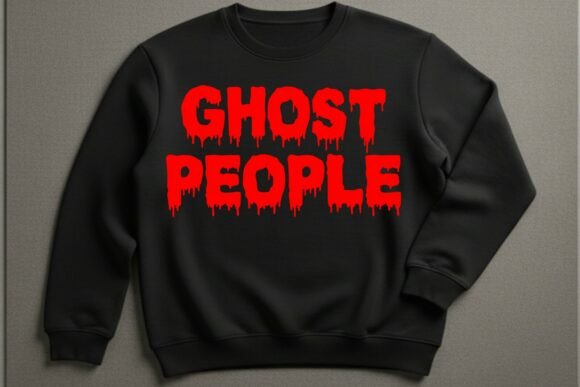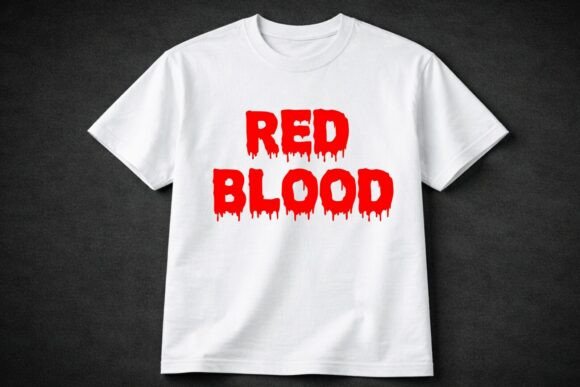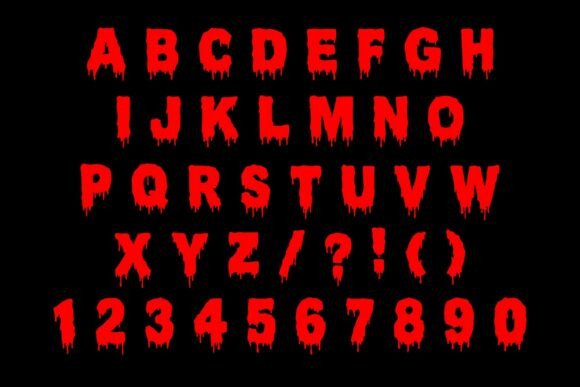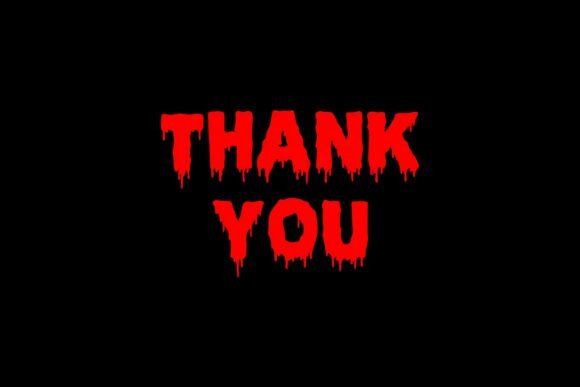
Introduction to Blood Scream Font
As designers, we’ve all been there – staring at a blank canvas, trying to conjure up the perfect design for a client’s Halloween-themed project. The pressure to create something truly terrifying can be overwhelming, but fear not, dear creatives! We’ve got just the thing to help you unleash your inner horror mastermind: the Blood Scream Font.
This high-quality, free download is a game-changer for any design project that requires a touch of the macabre. With its bold characters and dripping blood effects, the Blood Scream Font is the perfect addition to any haunted event promotion, scary branding, or Halloween party invitation. And the best part? It’s incredibly easy to use, even with a transparent background.
Whether you’re a seasoned designer or just starting out, the Blood Scream Font is a valuable resource that’s sure to bring a touch of drama and terror to your creative projects.
Key Features of Blood Scream Font
- High-quality font design for creative projects: The Blood Scream Font is a unique and stylish font perfect for designers and artists working on horror-themed or dark fantasy projects.
- Perfect for dark and gothic designs: The Blood Scream Font features a bold and eerie design, making it perfect for dark and gothic-themed projects.
- Great design resource: The Blood Scream Font is a great resource for designers and artists looking for a unique and high-quality font to use in their creative projects.
Honest Review: Blood Scream Font
I recently had the chance to work with the Blood Scream Font, and I must say it’s a real showstopper. This font is perfect for any design project that needs a bold, edgy vibe. ✨
What I love most about the Blood Scream Font is its versatility. It comes in a range of weights and styles, making it easy to customize to fit any design need. The font also has a transparent background, which makes it easy to layer and composite with other design elements. Plus, it’s a free download, making it a valuable resource for designers on a budget.
Of course, no font is perfect, and the Blood Scream Font has a few limitations. ⚠️ The font is not suitable for all design projects, particularly those that require a more subtle or elegant look. Additionally, some users may find the font’s edgy vibe to be too intense for certain projects.
Overall, I’m really impressed with the Blood Scream Font. It’s a valuable resource for designers working on creative projects that require a bold, attention-grabbing look. Whether you’re designing a horror-themed poster or a edgy fashion campaign, the Blood Scream Font is definitely worth considering.
The Blood Scream Font is a unique and high-quality design resource ideal for creative projects that require a touch of darkness and mystery. This font features a transparent background, making it easy to use and customize in various design applications.
To get the most out of the Blood Scream Font, experiment with different font sizes, colors, and styles to create a unique and eye-catching design. You can also pair it with other design elements, such as images and graphics, to create a cohesive and engaging visual identity.
The Blood Scream Font is ideal for various creative projects, including horror-themed designs, dark fantasy artwork, and mysterious typography. You can use it to create posters, flyers, social media graphics, and other visual elements that require a touch of darkness and mystery.
Is the Blood Scream Font suitable for high-quality design projects?
Yes, the Blood Scream Font is a high-quality design resource that’s perfect for creative projects. Its unique design and transparent background make it an excellent choice for posters, flyers, and other marketing materials. With its high-resolution design, it’s sure to make your project stand out.